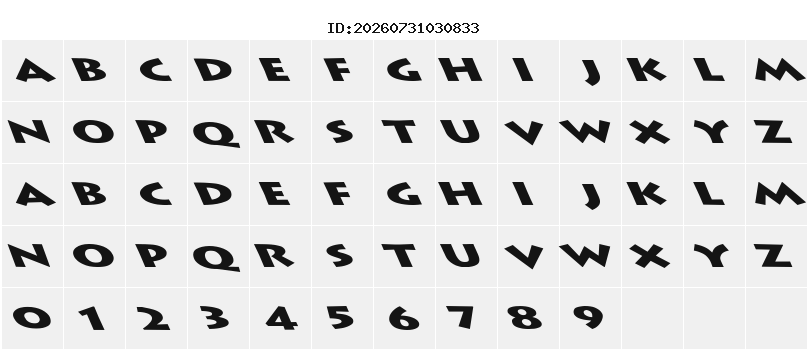
About Lithograph Extended Leftie.ttf
Lithograph Extended Leftie.ttf is a modern, elegant sans-serif font designed for ultimate readability and visual harmony. Perfect for branding, headlines, web design, and print materials.